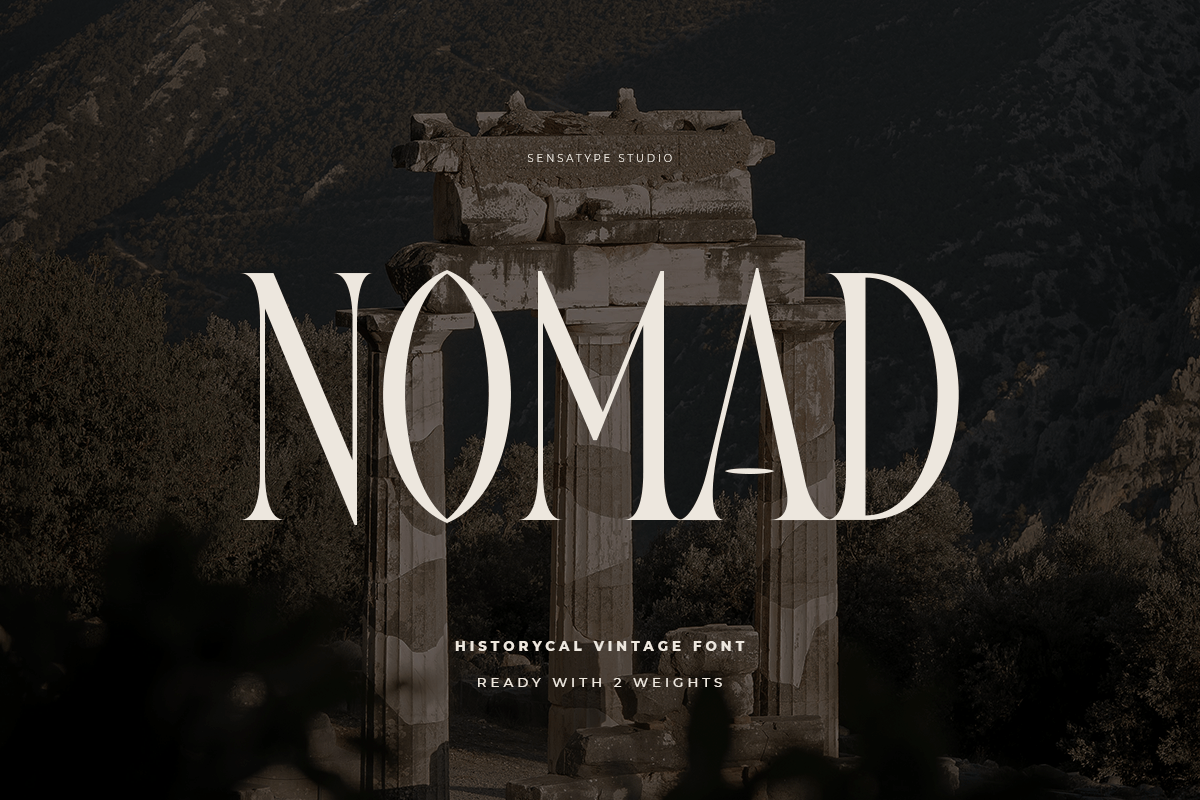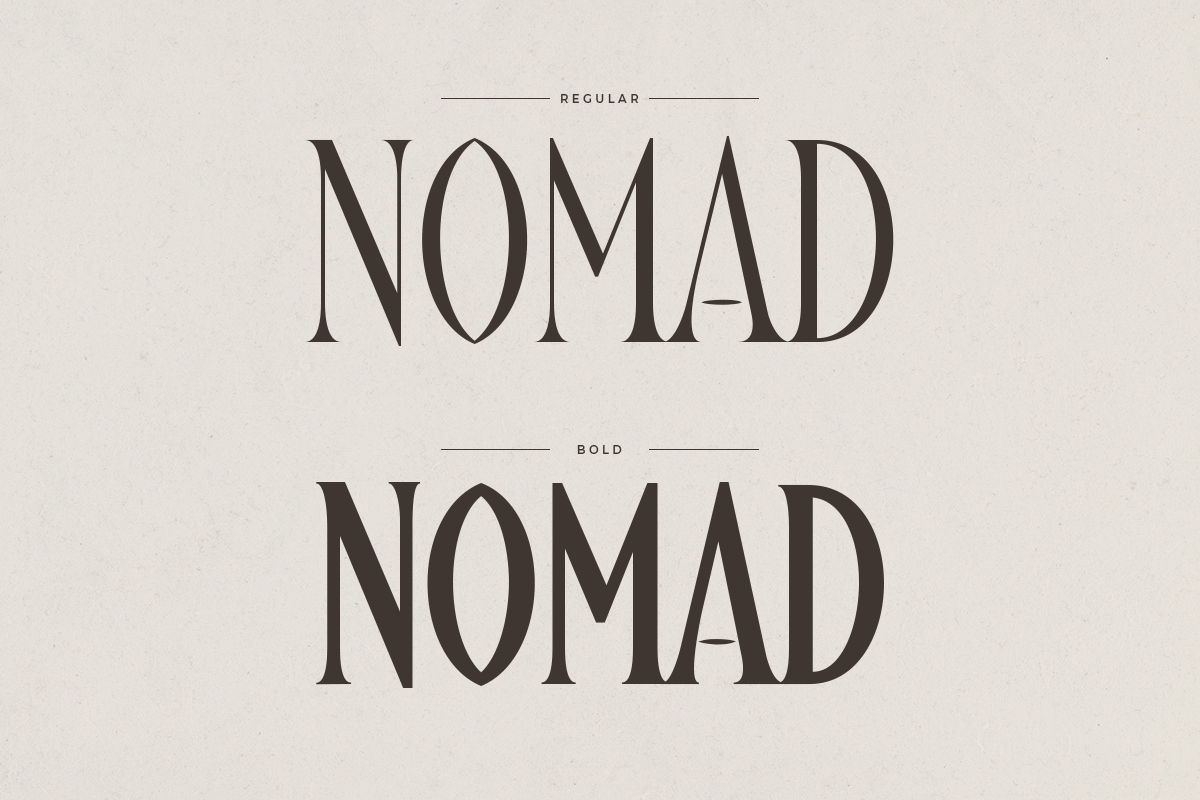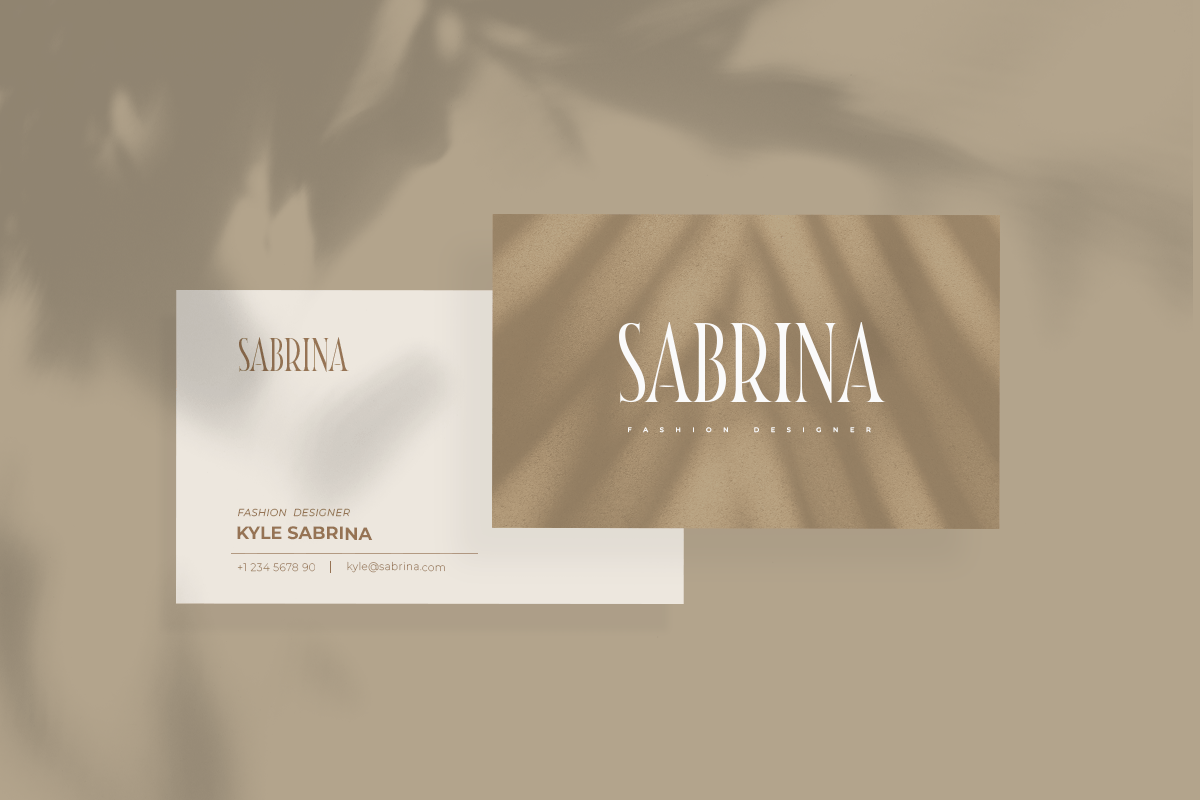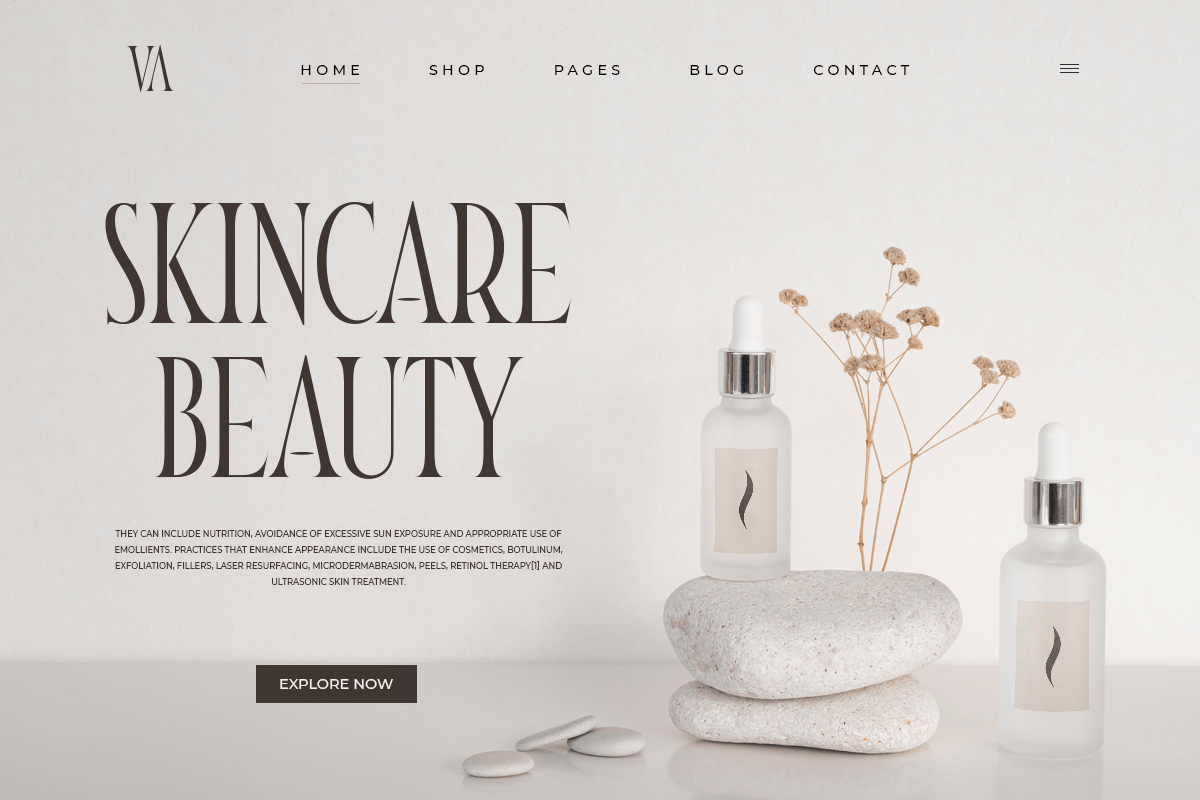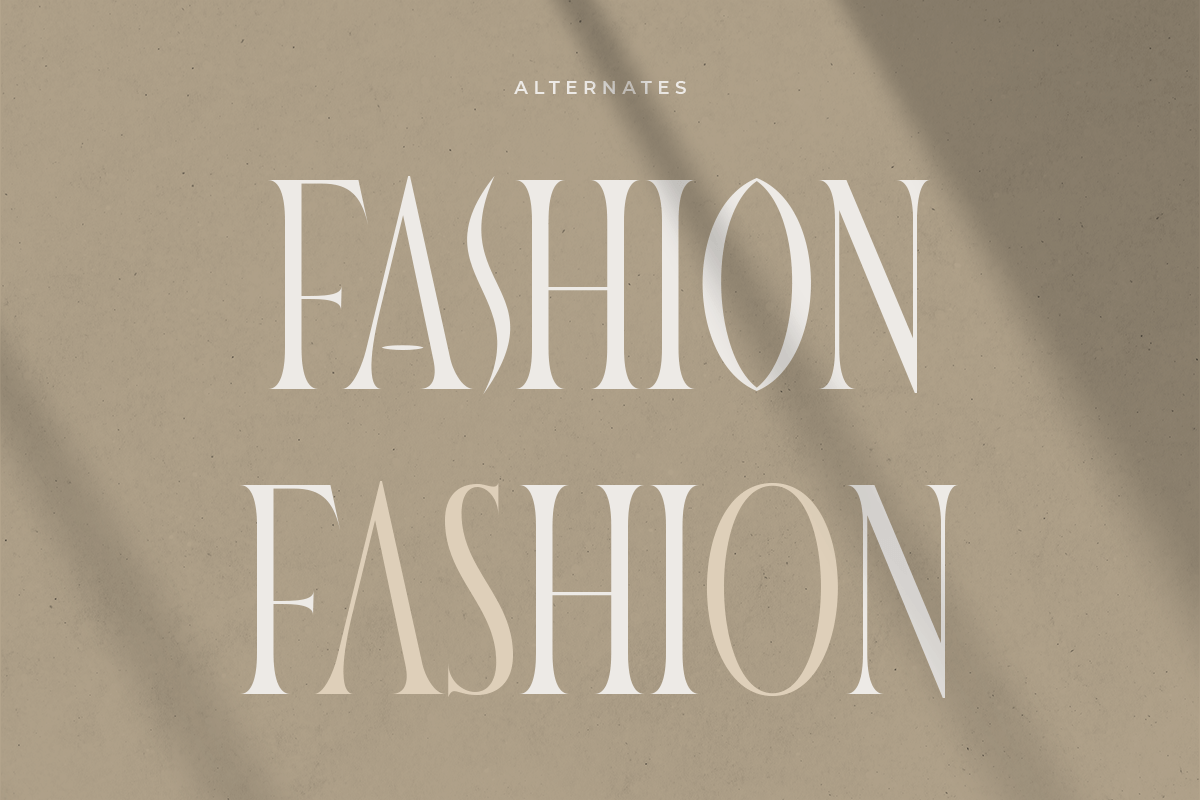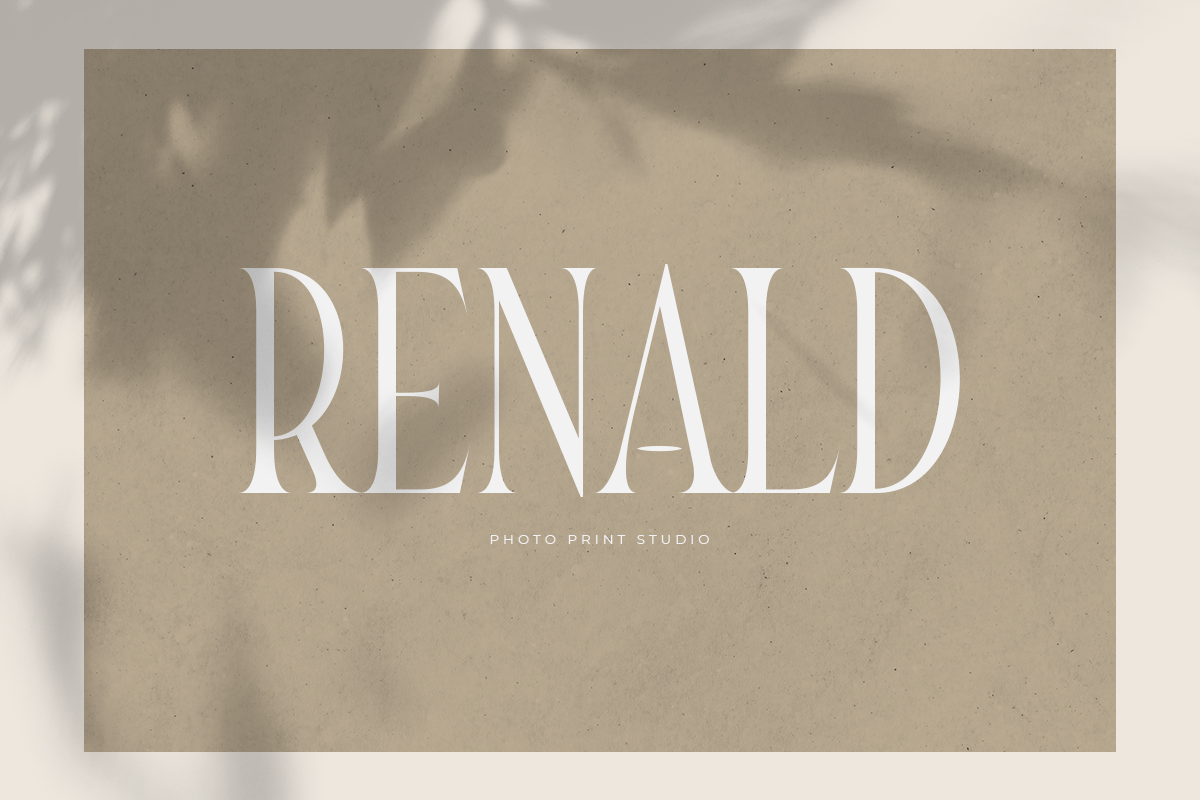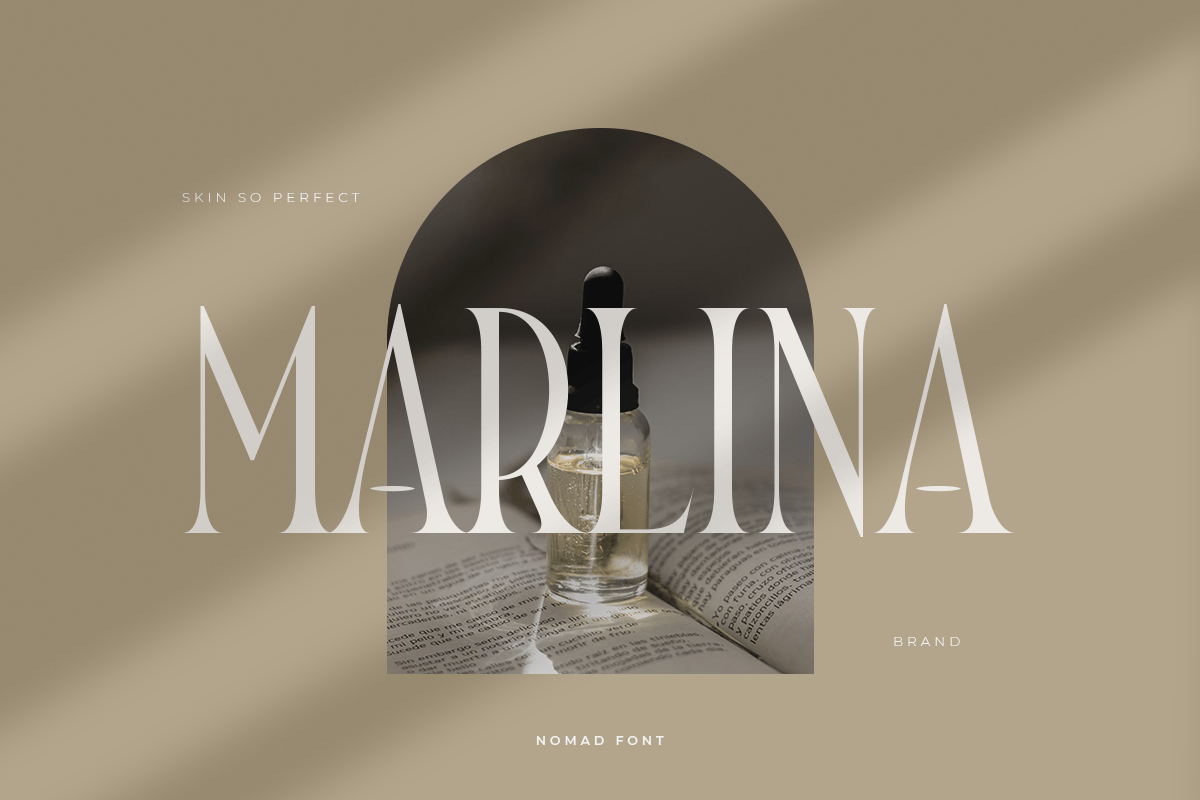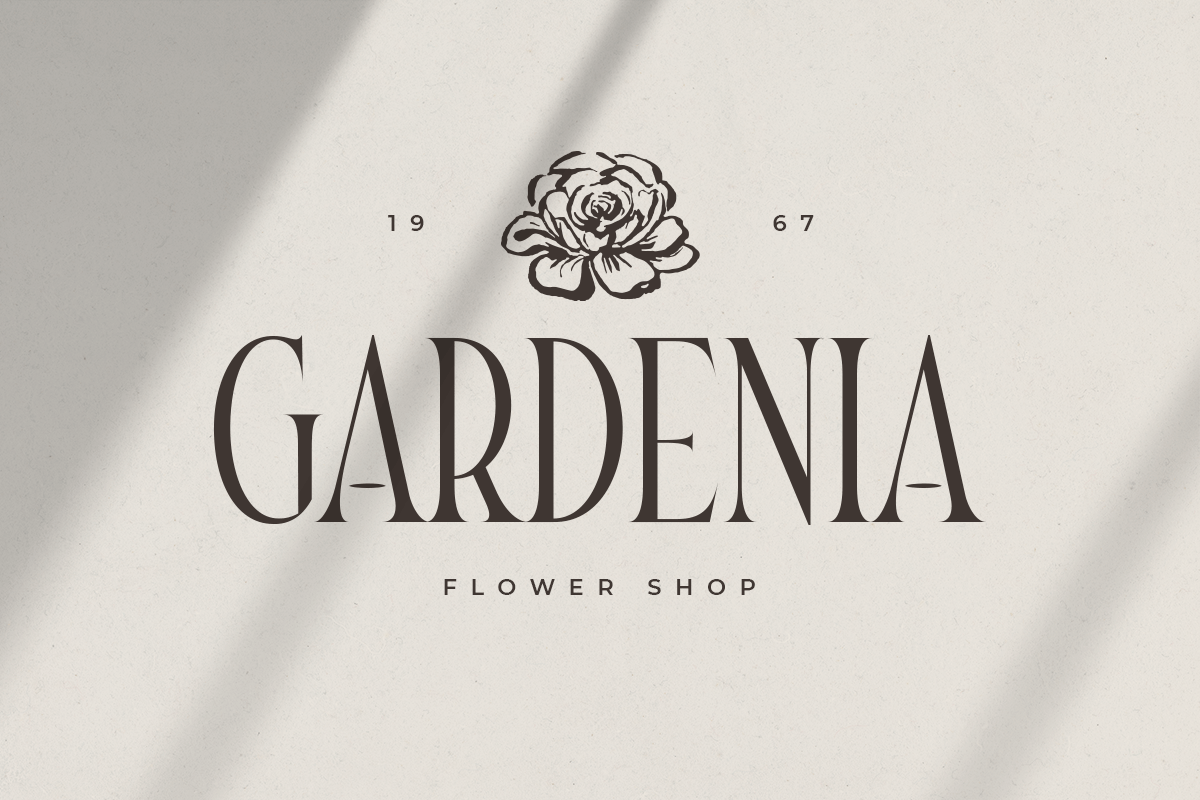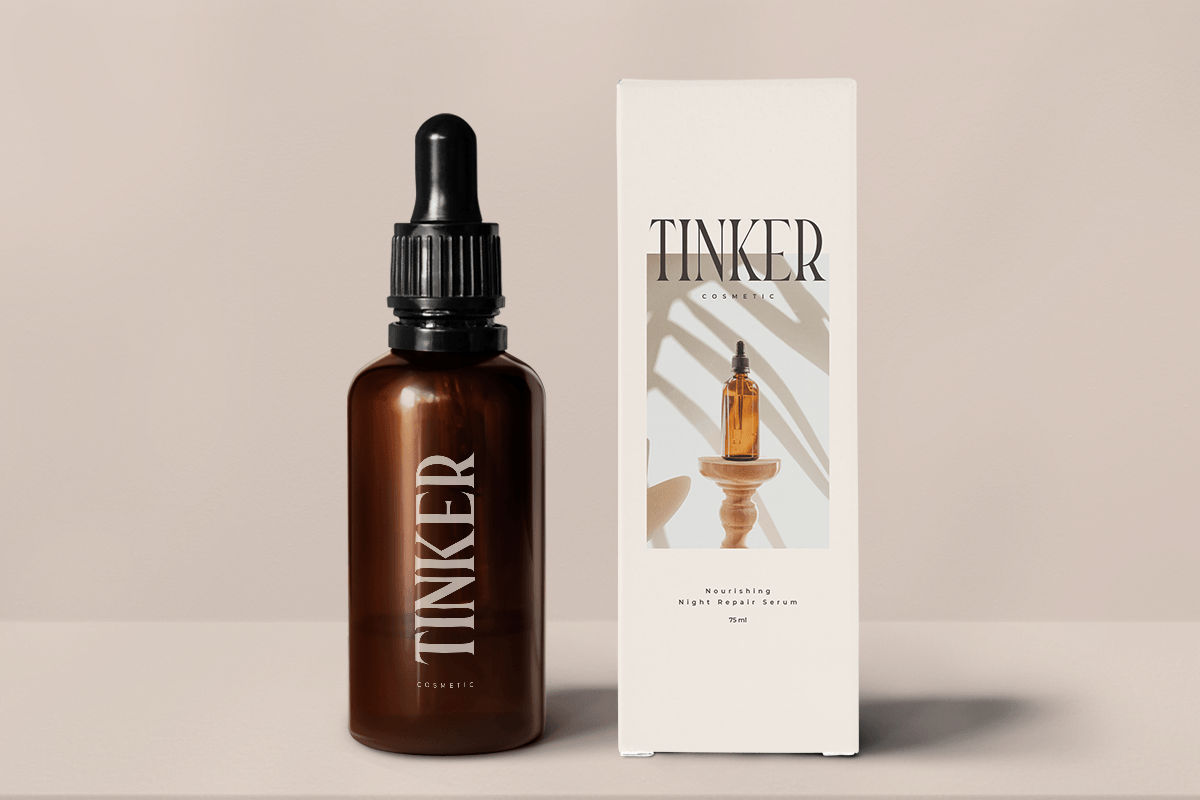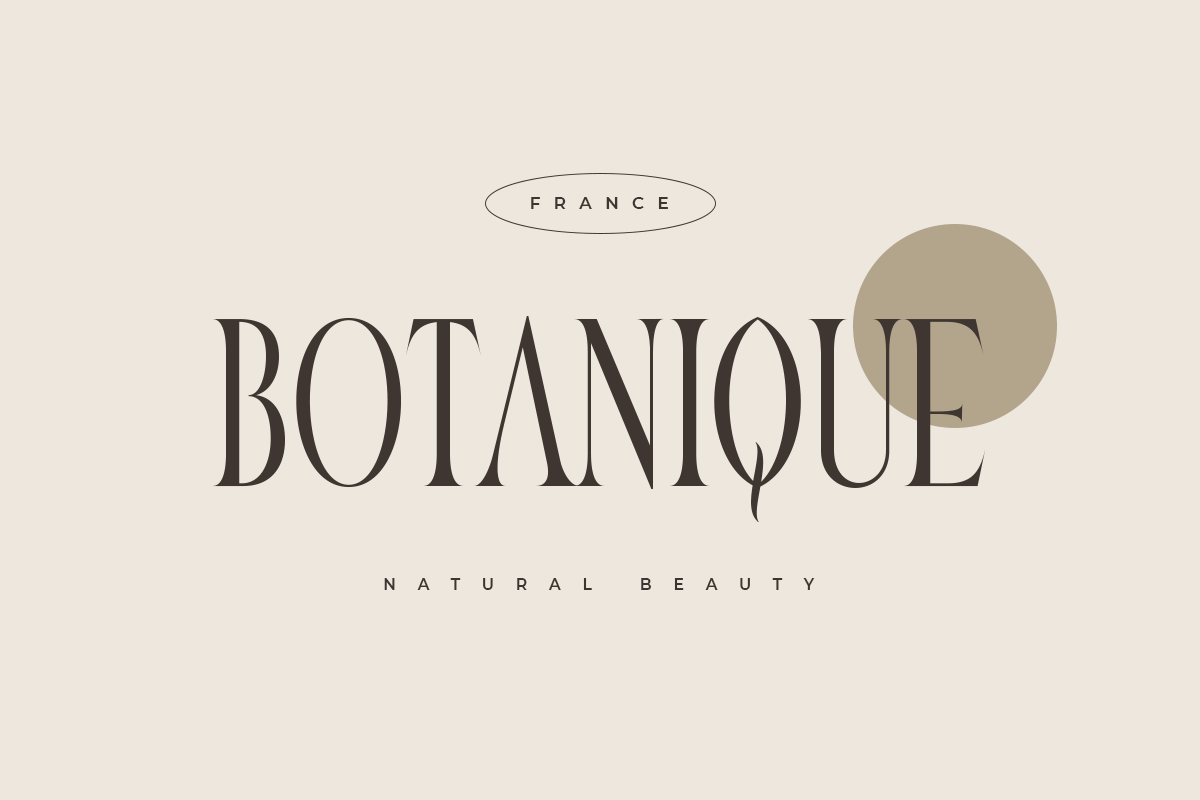
NOMAD
-Historical Vintage Font
NOMAD is a vintage vibes font are produced with modern style and ready for historical projects.
Based on our experience as a graphic designer who works for a lot of companies, we often are requested to design a graphic with a vintage feels and modern style. So, we try to brainstorming and create this font to make the idea is going out. This is perfect for show off in historical style and vintage vibes. You will get vintage, modern, and certainly unique style with this font.